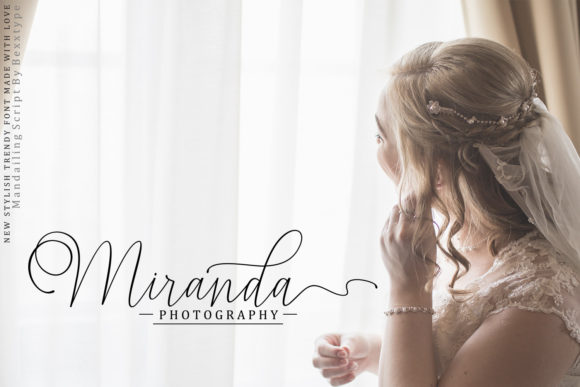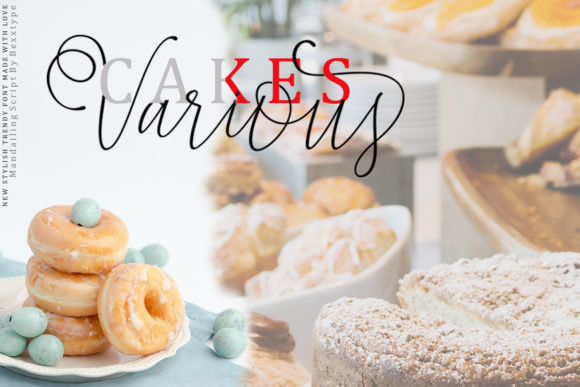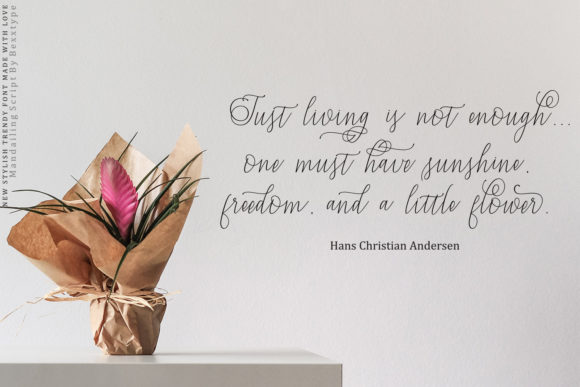
Introduction to Mandailing Script Font
The Mandailing is a modern calligraphy script.
It includes beautiful swashes which will give your design an elegant and feminine touch It’s handmade letters will add a natural feel to any design.
Why Choose Mandailing Script Font?